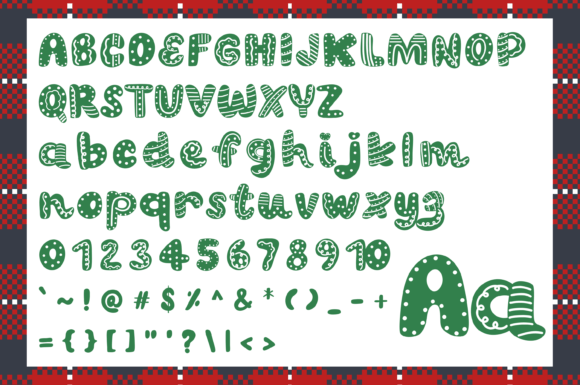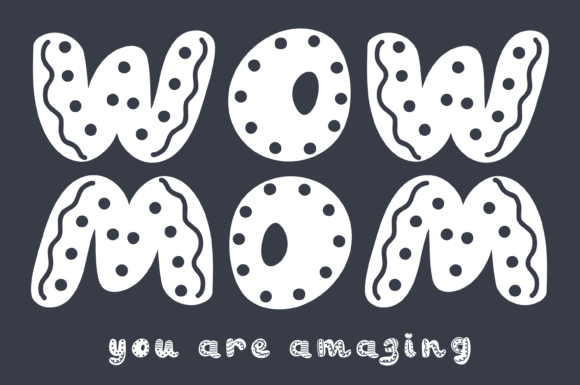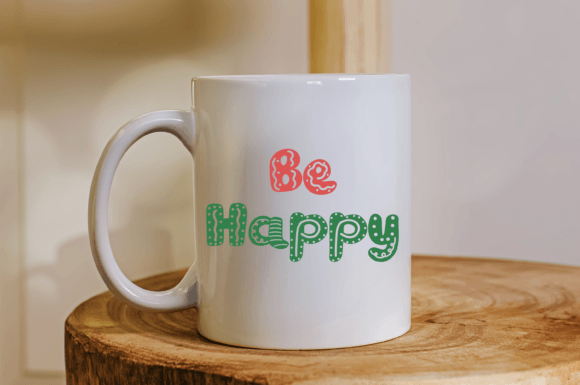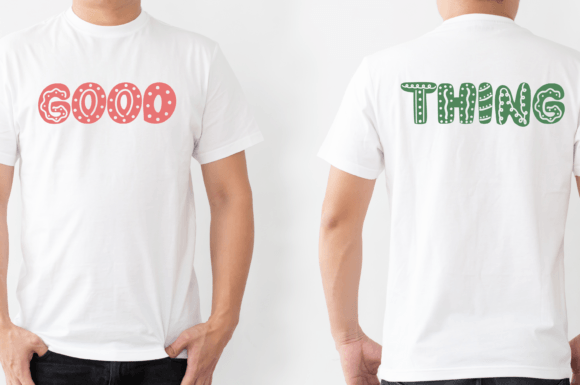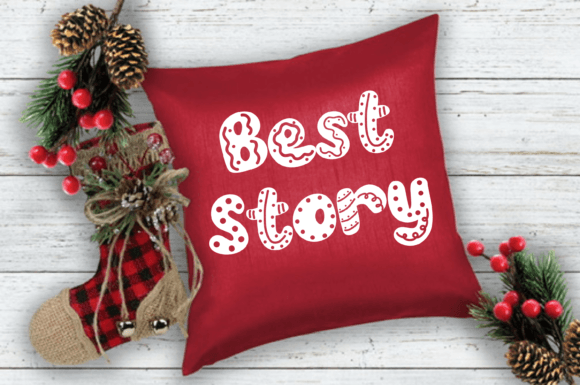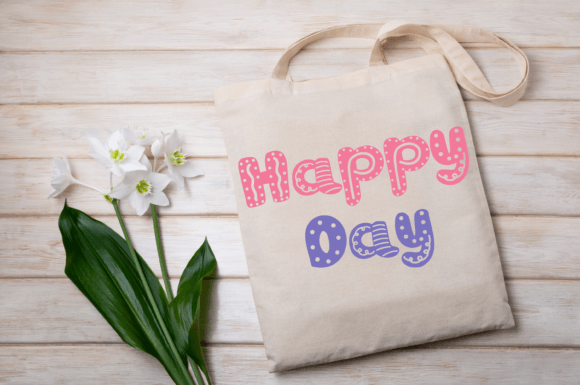
Coco Christmas Font: Add a Touch of Whimsy to Your Holiday Designs
The holiday season is upon us, and with it comes the need for festive and fun designs that capture the spirit of Christmas. If you’re a designer, crafter, or DIY enthusiast looking for a unique and eye-catching font to add to your projects, look no further than the Coco Christmas Font. This whimsical and clean decorative font is perfect for creating a wide range of holiday-themed designs that are sure to stand out.
What is Coco Christmas Font?
Coco Christmas Font is a specially designed font that embodies the magic and wonder of the holiday season. Its whimsical and clean design makes it perfect for use in a variety of projects, from holiday cards and invitations to decorations and DIY crafts. The font’s unique and playful style is sure to add a touch of personality to any design, making it a great addition to your creative toolkit.
Key Features of Coco Christmas Font
So, what makes Coco Christmas Font so special? Here are just a few of its key features:
- Whimsical and clean design: The Coco Christmas Font features a unique and playful design that is both whimsical and clean. Its elegant lines and curves make it perfect for use in a wide range of projects.
- Highly versatile: This font can easily be matched to an incredibly large set of projects, making it a great addition to your creative toolkit.
- Perfect for holiday designs: The Coco Christmas Font is specifically designed for use in holiday-themed designs, making it perfect for creating festive and fun projects.
Uses for Coco Christmas Font
The Coco Christmas Font is incredibly versatile, and can be used in a wide range of projects, including:
- Holiday cards and invitations: Add a touch of whimsy to your holiday cards and invitations with the Coco Christmas Font.
- DIY crafts: Use the Coco Christmas Font to add a personal touch to your DIY crafts, such as holiday decorations and gift tags.
- Social media graphics: Create festive and fun social media graphics using the Coco Christmas Font.
- Web designs: Add a touch of holiday cheer to your website with the Coco Christmas Font.
Why Choose Coco Christmas Font?
So, why choose the Coco Christmas Font for your holiday designs? Here are just a few reasons:
- Unique and eye-catching: The Coco Christmas Font is a unique and eye-catching font that is sure to make your designs stand out.
- Easy to use: The font is easy to use and can be easily matched to a wide range of projects.
- Perfect for the holiday season: The Coco Christmas Font is specifically designed for use in holiday-themed designs, making it perfect for the holiday season.
Tips for Using Coco Christmas Font
Here are a few tips for using the Coco Christmas Font in your designs:
- Use it sparingly: Use the Coco Christmas Font sparingly to add a touch of whimsy to your designs.
- Experiment with different colors: Experiment with different colors to find the perfect combination for your design.
- Pair it with other fonts: Pair the Coco Christmas Font with other fonts to create a unique and eye-catching design.
| Font Name | Coco Christmas Font |
| Author | AchiArt |
The Coco Christmas Font is a whimsical and clean decorative font that is perfect for adding a touch of holiday cheer to your designs. Its unique and eye-catching design makes it perfect for use in a wide range of projects, from holiday cards and invitations to DIY crafts and web designs. With its ease of use and versatility, the Coco Christmas Font is a great addition to any designer’s toolkit.